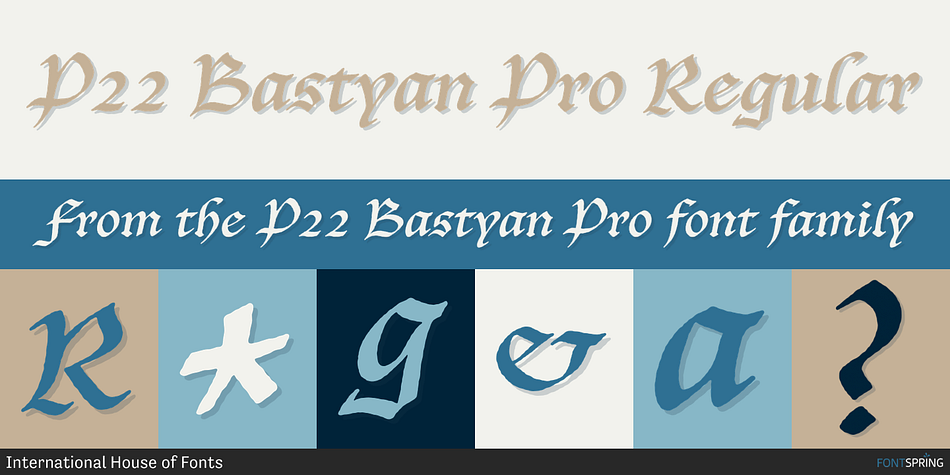
P22 Bastyan Pro Regular
P22 Bastyan Pro is a blackletter font published by International House of Fonts.
P22 Bastyan is a hybrid Italic Blackletter. This typeface resembles Carolingian miniscule scripts and has a timelessness that evokes formality but defies specific historical categorization. It is available in an optional Opentype “Pro” version with CE language support, multiple styles of figures, ornaments & ligatures”